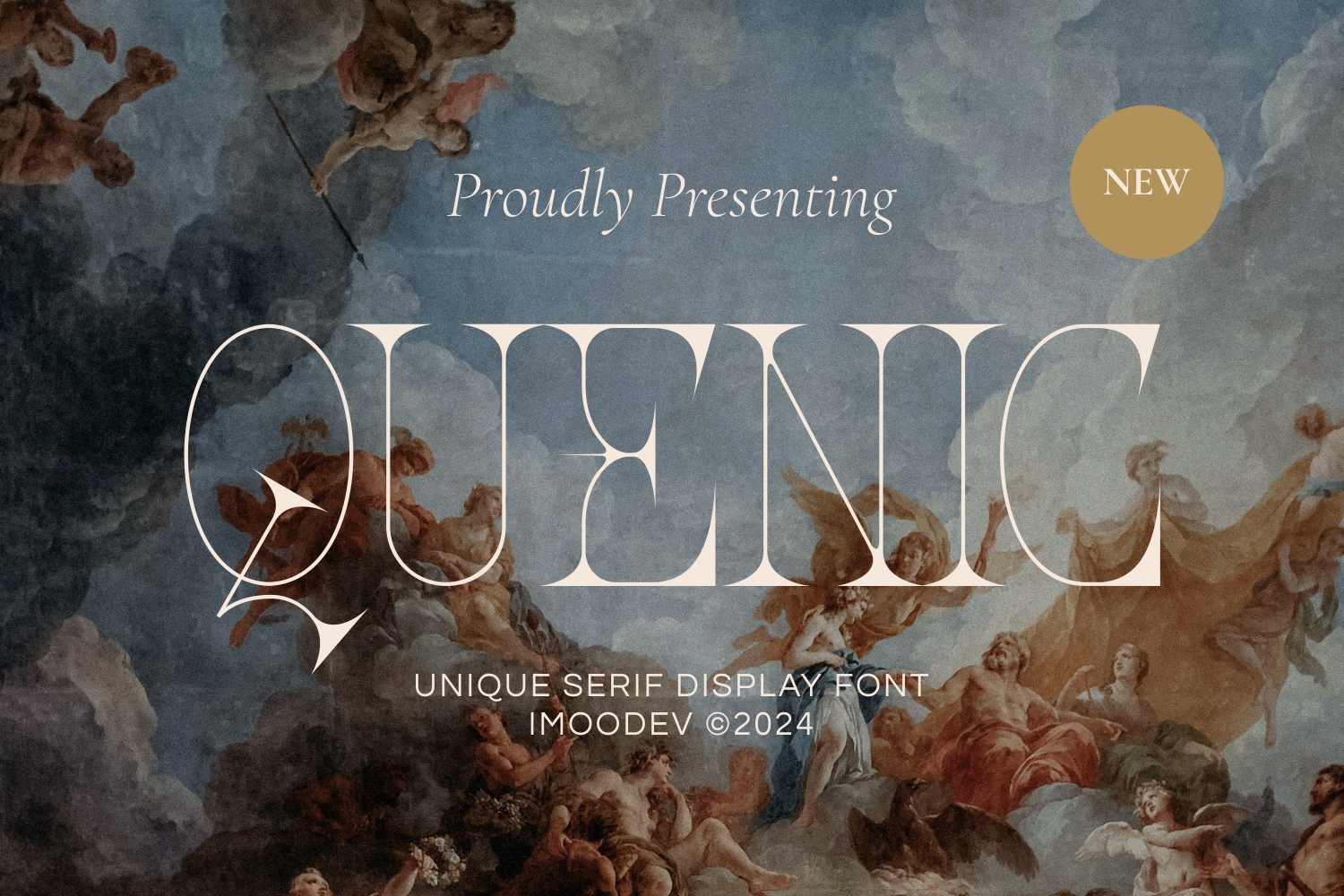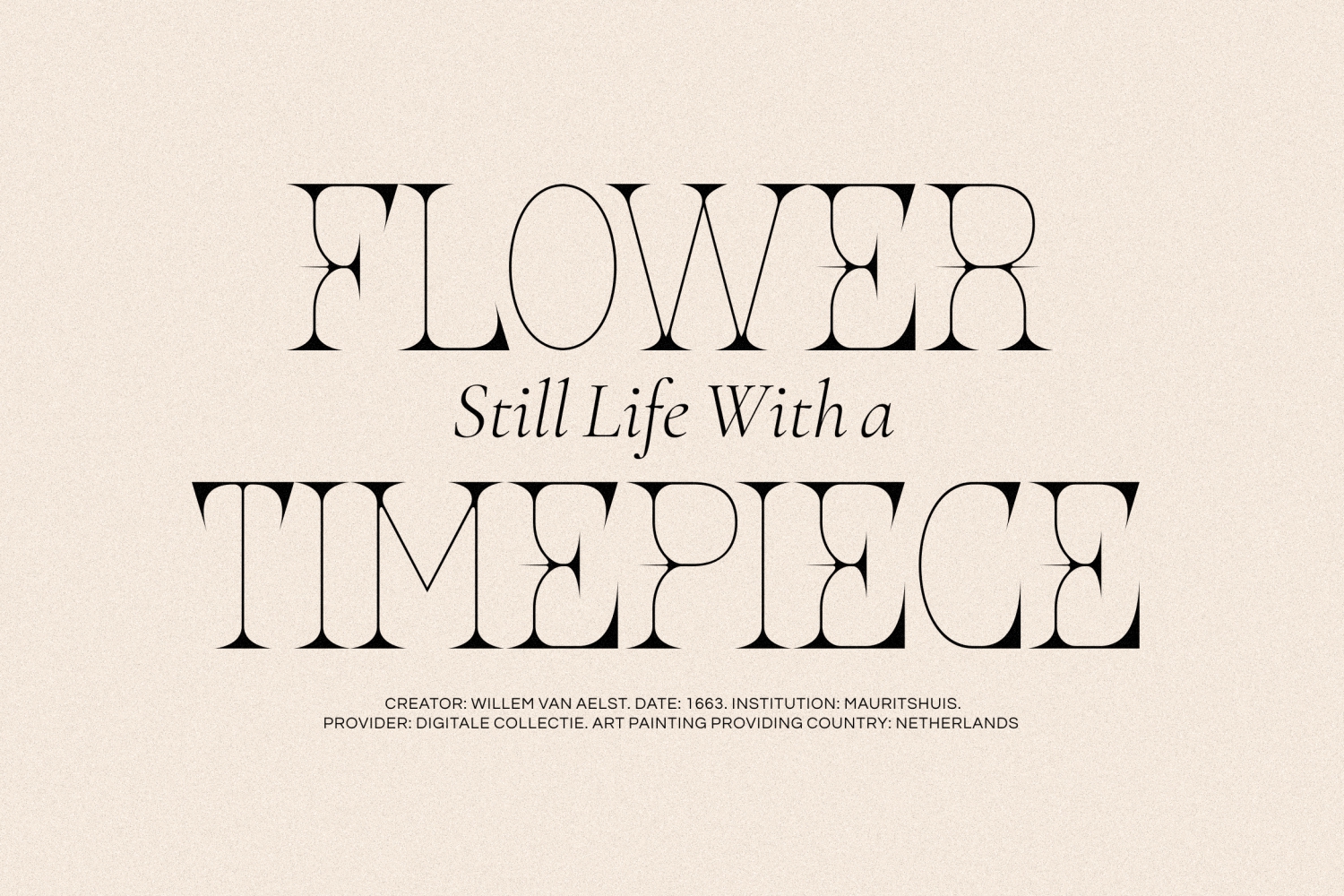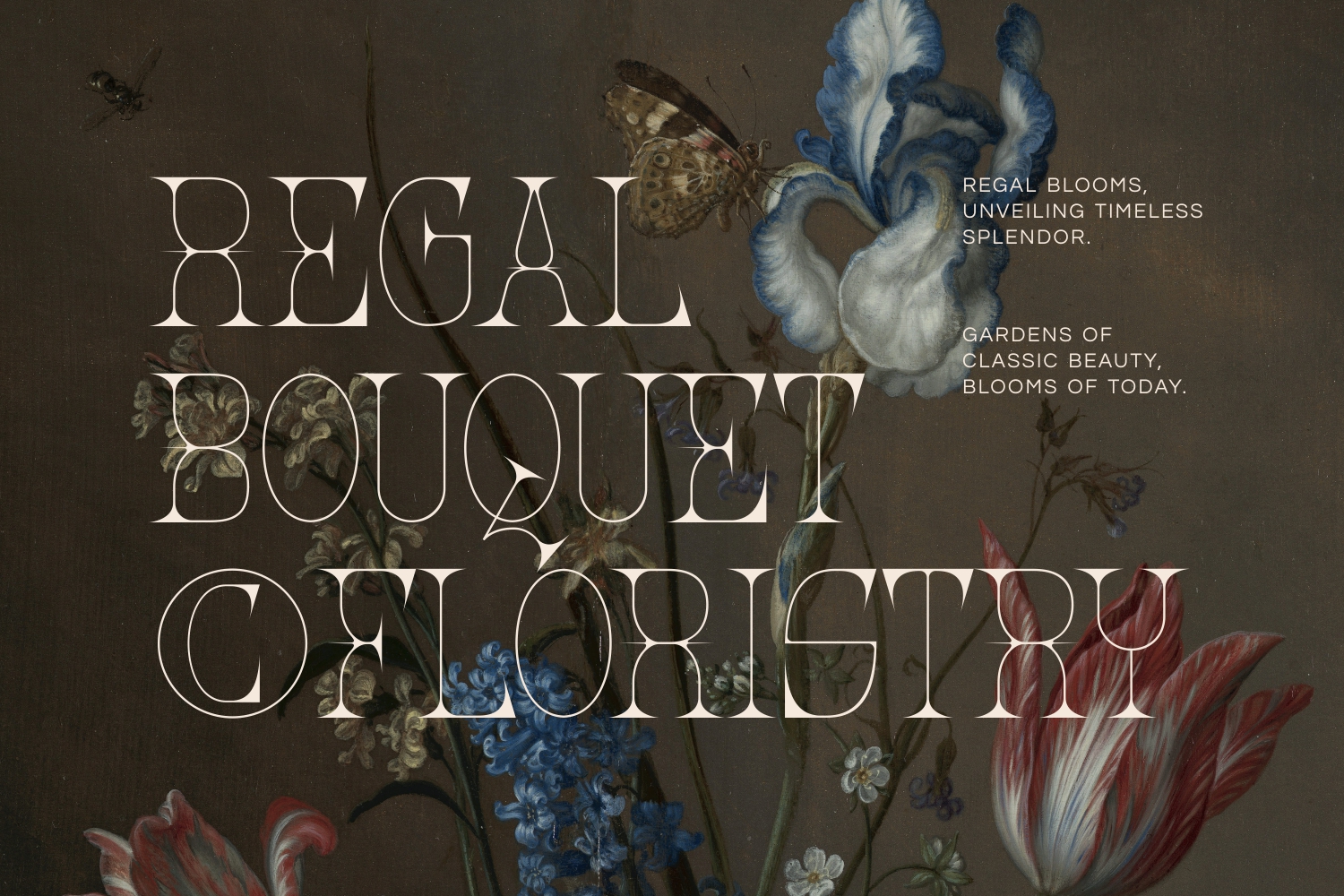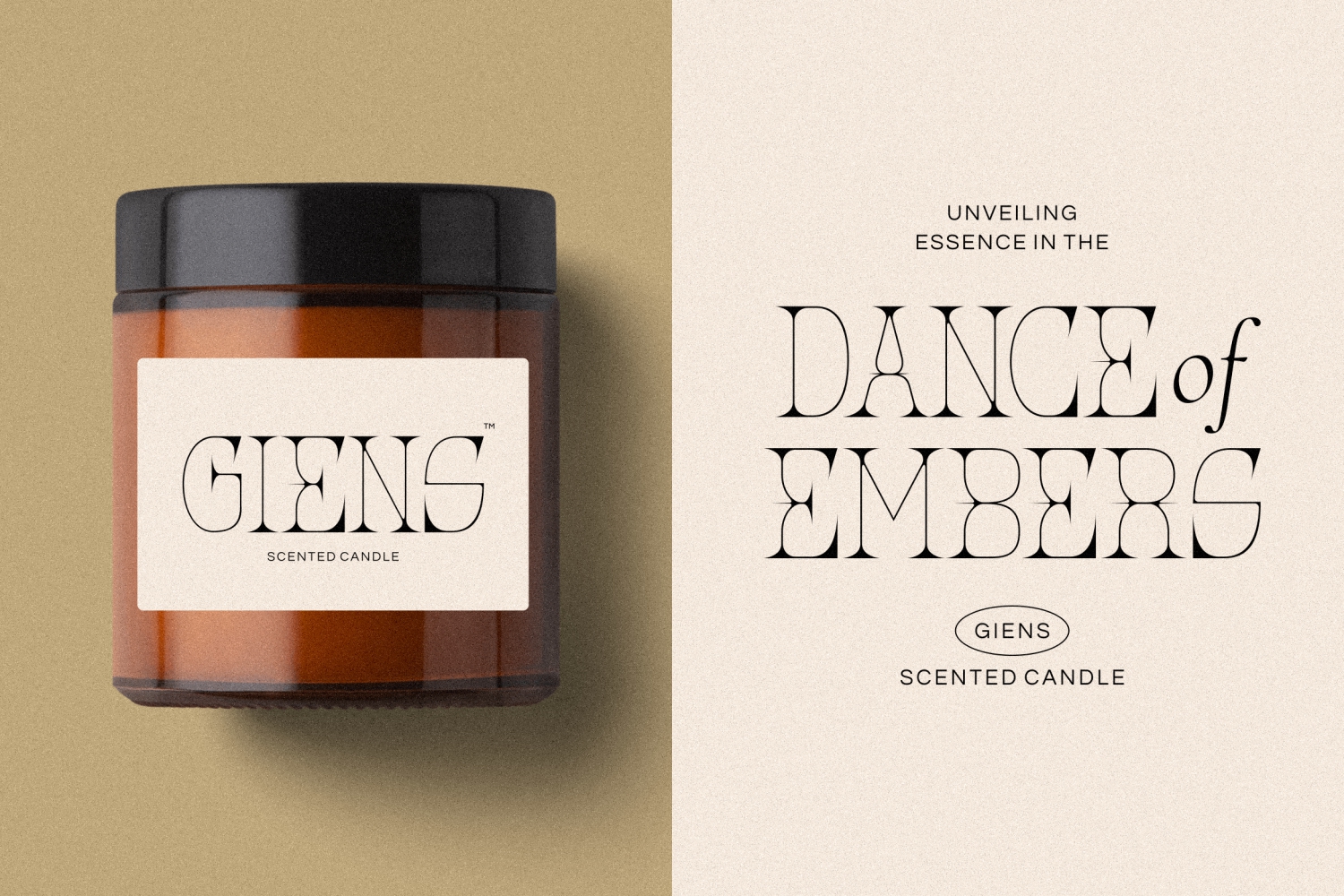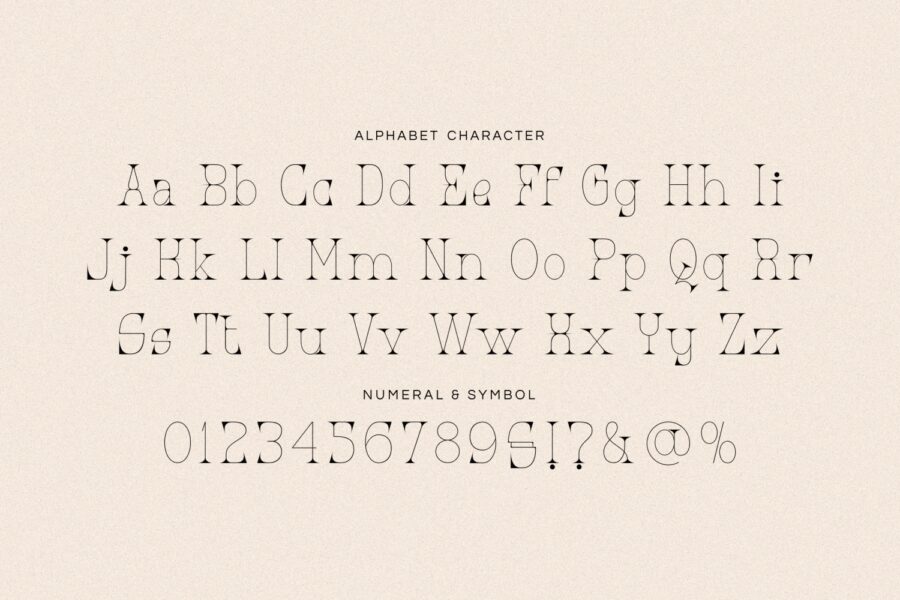
Quenic is a unique serif display font that exudes elegance and sophistication through its high-contrast strokes and distinctive letterform details. Inspired by classical art and timeless design, this font combines sharp, refined serifs with artistic cuts, creating a luxurious yet modern aesthetic. Its graceful proportions and decorative flair make it an exceptional choice for branding, editorial layouts, packaging, and any project that demands a regal touch.
Perfect for statement headlines and upscale visual identities, Quenic offers versatility while maintaining its strong, stylish character. Whether showcased in magazine titles, luxury product labels, or artistic posters, it brings a sense of refinement and beauty. With its intricate curves and polished finish, this font captures both historical charm and contemporary elegance, making it an essential tool for designers seeking to elevate their typography.